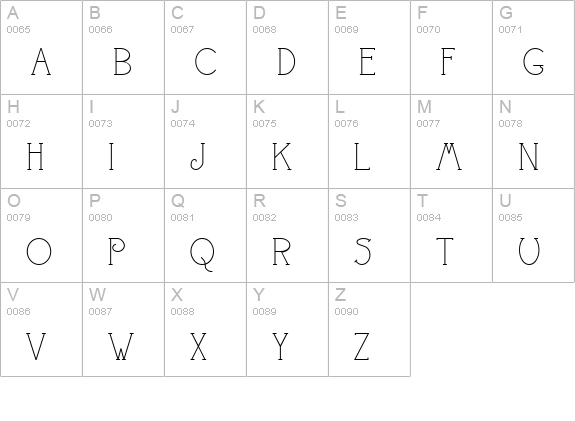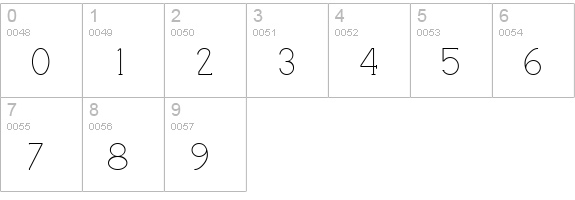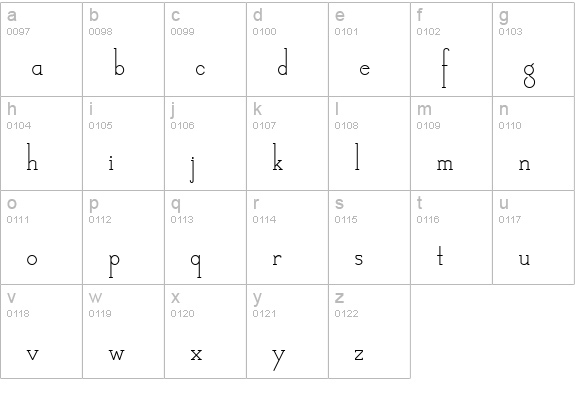
Camelot MF Font Details
Camelot MF font is a stunning display typeface that exudes elegance and sophistication. With its intricate details and stylish design, this font is perfect for creating eye-catching headlines, logos, and branding materials. The unique serifs and delicate curves of Camelot MF add a touch of class to any project. What sets Camelot MF font apart is that it is not only visually appealing but also completely free to use. That's right, you can download this exquisite font at no cost from FontsMarket.com. Whether you're a designer looking to add a touch of luxury to your work or a business owner in need of a distinctive font for your marketing materials, Camelot MF is a fantastic choice that won't break the bank. Download Camelot MF font today and elevate your designs with its timeless beauty and charm.